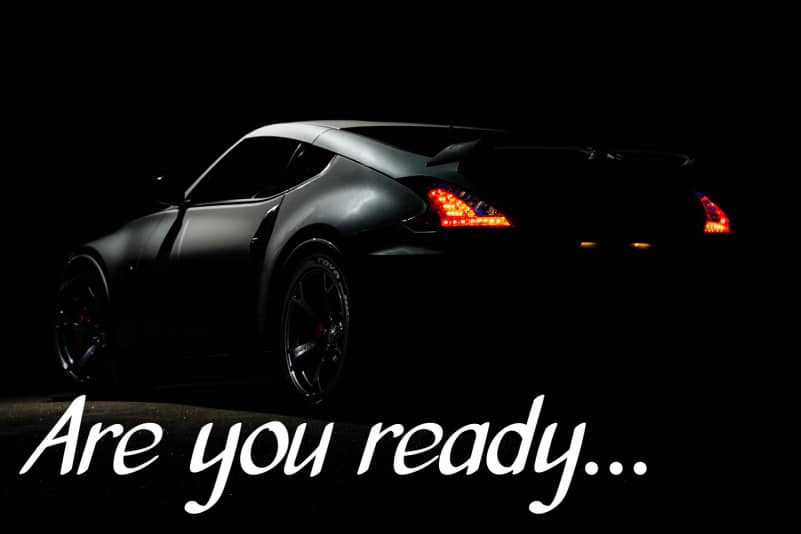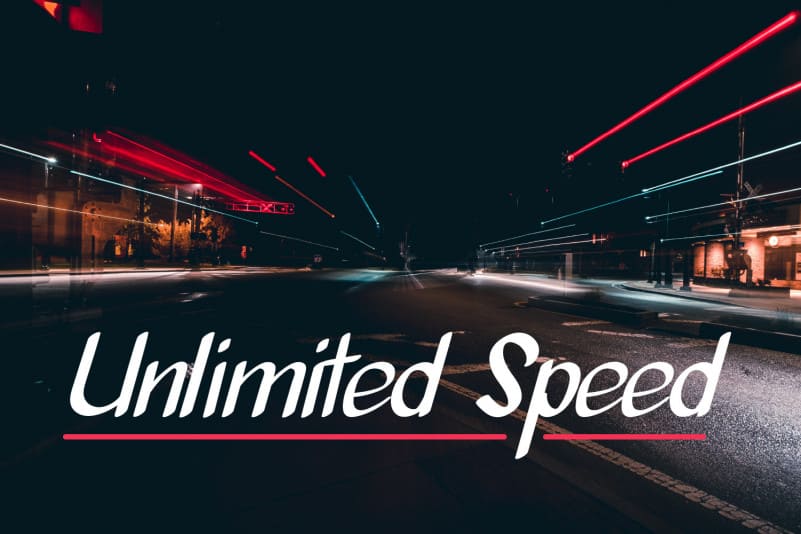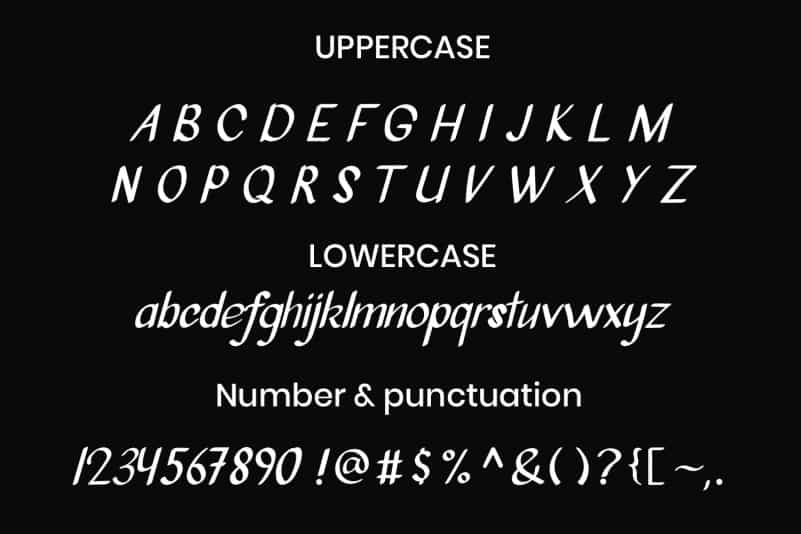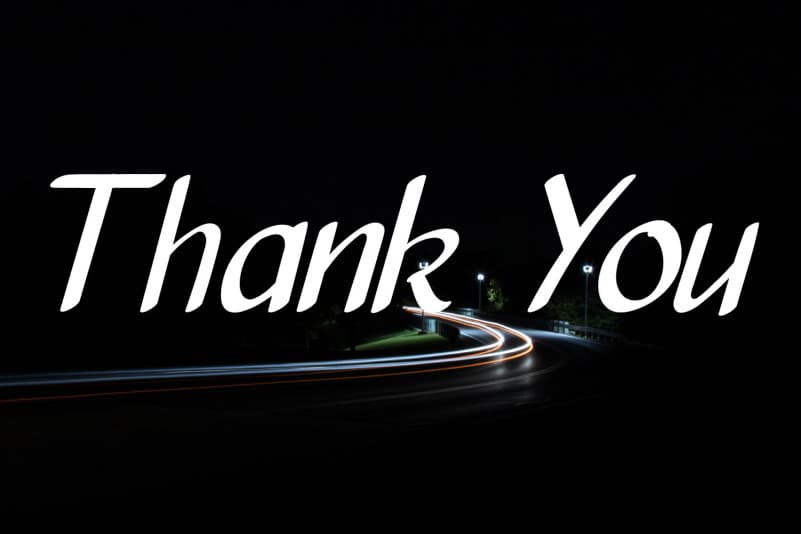
Minimum Jump Handwritten Font
Minimum Jump Handwritten Font is a sweet and friendly handwritten font. Its relaxed style makes it fitting to a wide range of designs. Add this font to your favorite creative ideas and notice how it makes them come alive!